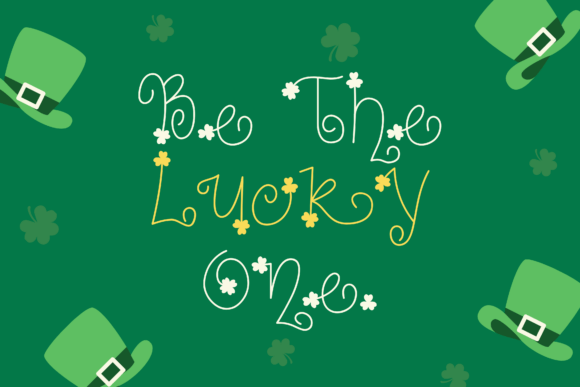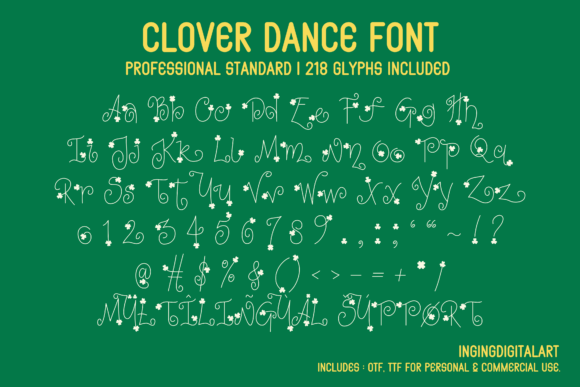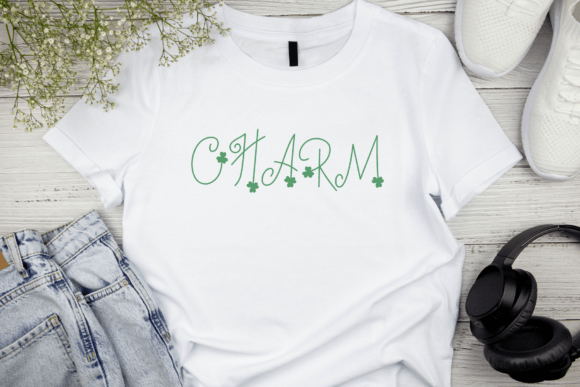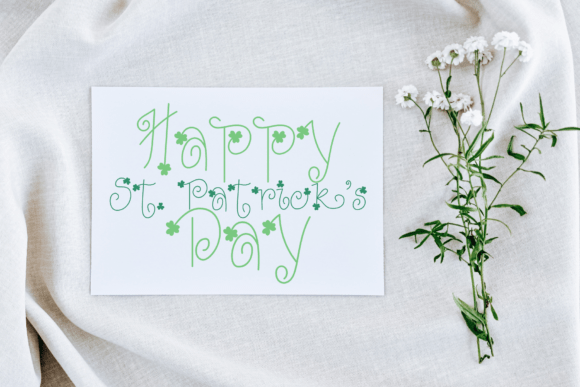
Introduction to Clover Dance Font
Have you ever been in the midst of a creative project, pouring your heart and soul into designing the perfect invitation or social media graphic, only to feel like something’s missing? The right font can make all the difference in elevating your design and making it truly special. That’s where the enchanting Clover Dance Font comes in – a hand-lettered font that’s sure to add a touch of magic to your creative endeavors.
With its delicate lines, playful curves, and adorable clover leaves, this font is the perfect design resource for anyone looking to add a friendly and approachable feel to their work. Whether you’re a seasoned designer or a crafty enthusiast, the Clover Dance Font is a high-quality addition to your design toolkit that’s sure to make your projects stand out.
Key Features of Clover Dance Font
- Unique and playful design, perfect for creative projects and adding a touch of whimsy.
- Perfect for adding a touch of magic to your design projects, from invitations to digital art.
Honest Review: Clover Dance Font
As a designer, I’m always on the lookout for unique and high-quality design resources. The Clover Dance Font is a great addition to any creative project, offering a fun and playful vibe that’s perfect for adding some whimsy to your designs.
- ✨ High-quality design with crisp, clear lines and a transparent background, making it easy to use with any design elements.
- ✨ The font is highly customizable, allowing you to adjust the size, color, and spacing to fit your design needs.
- ⚠️ The font may not be suitable for formal or professional designs, as it’s more geared towards creative projects and illustrations.
- ⚠️ Some users may find the font’s playful nature to be too distracting or overwhelming, so use it sparingly.
Overall, I’m impressed with the Clover Dance Font. It’s a great resource for designers looking to add some personality to their projects. With its high-quality design, transparency, and customizability, it’s a valuable addition to any design toolbox.
Tips for Getting the Most Out of Clover Dance Font
To get the most out of the Clover Dance Font, try using it in a creative project where you want to add a touch of whimsy and playfulness. The font is perfect for designs that require a lot of movement and energy, such as dance or sports-related projects.
Common Use Cases for Clover Dance Font
The Clover Dance Font is commonly used in designs that require a lot of movement and energy, such as dance or sports-related projects. It’s also perfect for creating unique and eye-catching titles, headings, and logos.